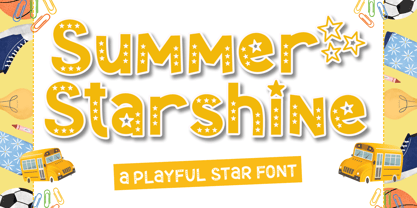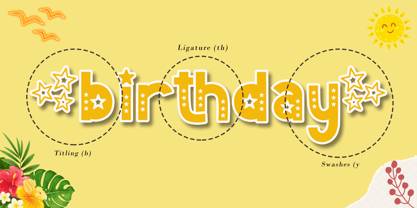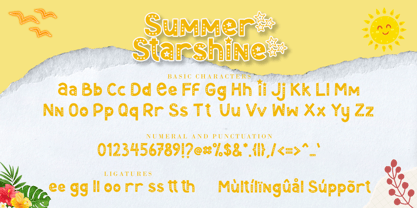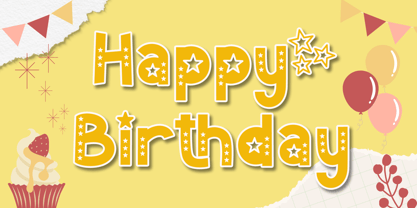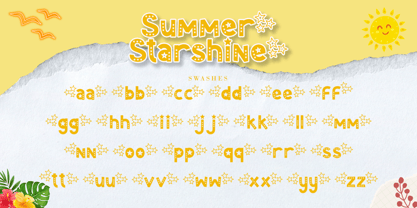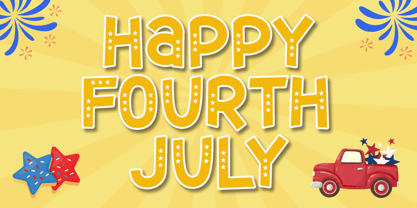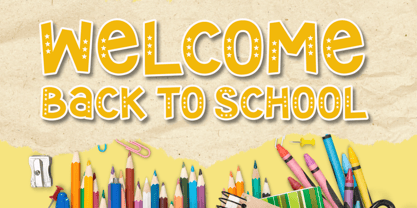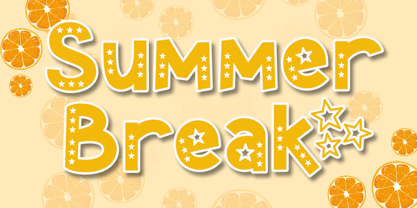
Summer Starshine
by AEN Creative Studio
The Summer Starshine Font Family was designed by Agung Eko Nugroho and published by AEN Creative Studio. Summer Starshine contains 2 styles and family package options. More about this family
Say hello to Summer Starshine, a fun and cheerful display font that brings the sparkle of summer right into your designs! Featuring hand-drawn stars and bold letterforms, it’s ideal for everything from July 4th party invites to classroom posters and summer flyers. The friendly vibe makes it a great fit for kid fun content, school crafts, and digital goodies. Let your message shine bright with this joyful and versatile typeface!
Designers: Agung Eko Nugroho
Foundry: AEN Creative Studio